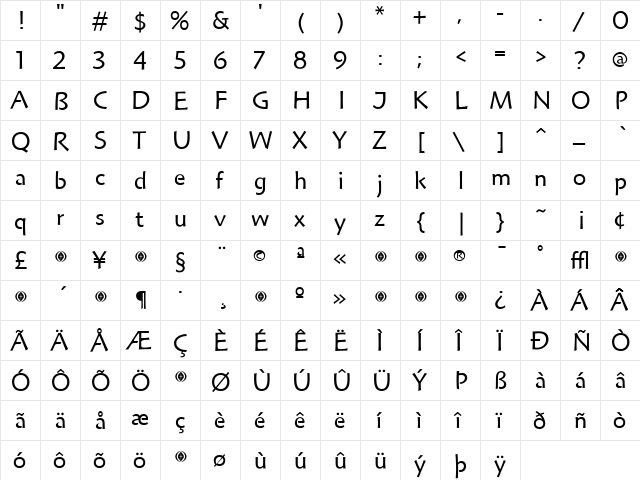
Hoffmann Regular
| Foundry | Copr. Designed by Richard Lipton. Produced by The Font Bureau, Inc |
Design Context for Hoffmann Typeface
Hoffmann takes a measured approach to typography — its balanced proportions and neutral character make it a reliable workhorse for both digital and print work.